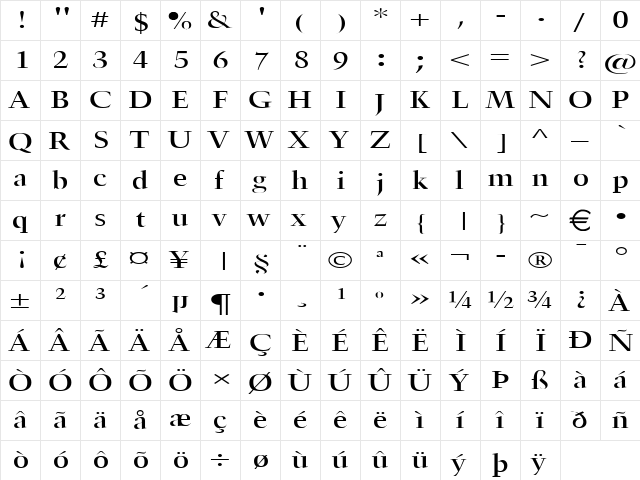
HornExtended Normal
Design Context for HornExtended Typeface
HornExtended is a composed and adaptable typeface that performs quietly and consistently across a wide range of design contexts.